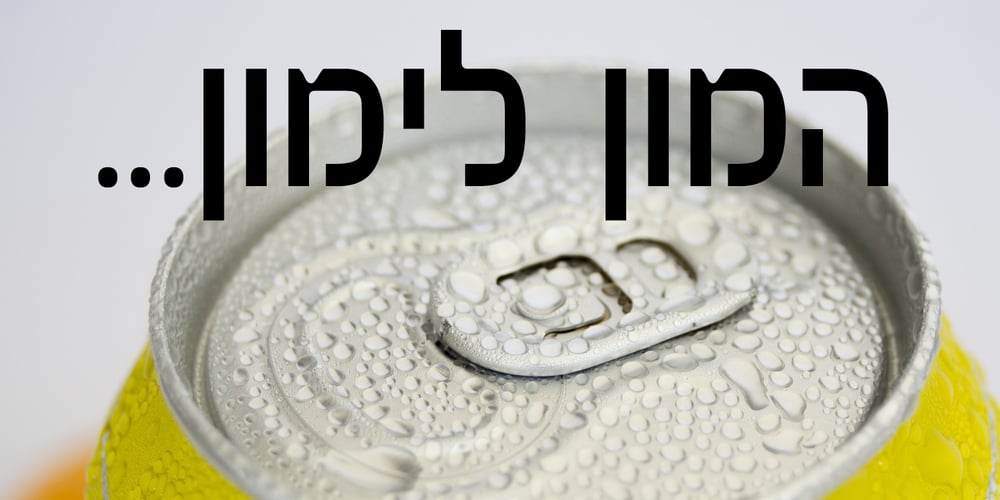
Politica MF
Politica MF font
Politica MF Font Family was designed by Eliyahu Fried and published by Masterfont. Politica MF contains 3 styles and family package options. Unique square letter design enhanced with round edges that make any signage stand out.